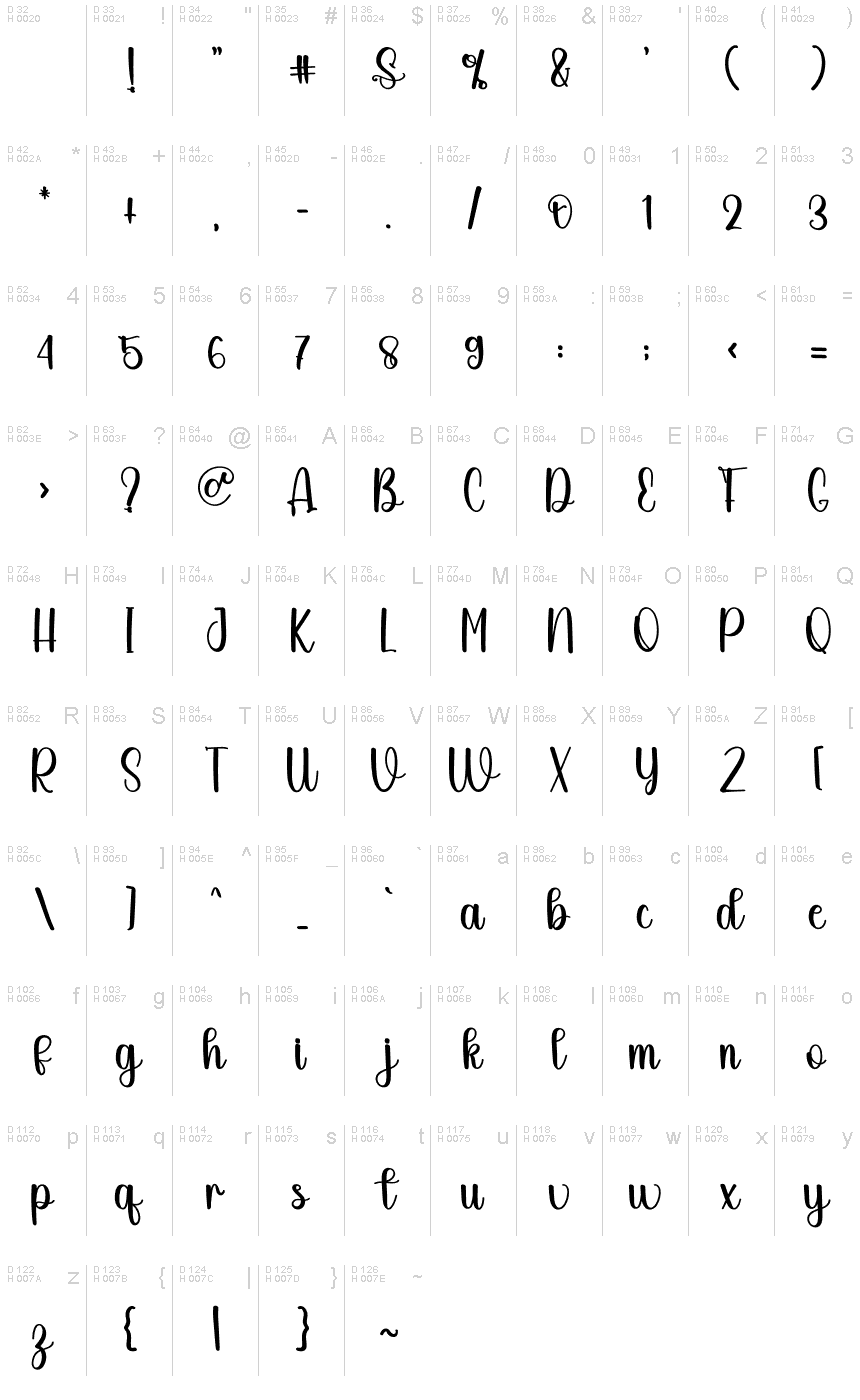
Morning Sunday
Morning Sunday, a creation by Inermedia Studio, stands out as a handwritten font that exudes an effortlessly chic and personal touch. With its semi-light weight and semi-condensed width, it strikes a fine balance between delicate finesse and readable compactness, ensuring that it maintains both charm and functionality.
The organic flow of Morning Sunday's characters captures the essence of casual elegance, making it an excellent choice for designs requiring a touch of authenticity. Whether it's for invitations, branding materials, or editorial layouts, this font adds a warm, inviting feel to any creative project.
Its handwritten style is not only aesthetically pleasing but also versatile enough to blend seamlessly into various contexts while still maintaining its distinct character. Morning Sunday can elevate your design work by offering that handcrafted impression which resonates with audiences seeking approachability and originality in typography.